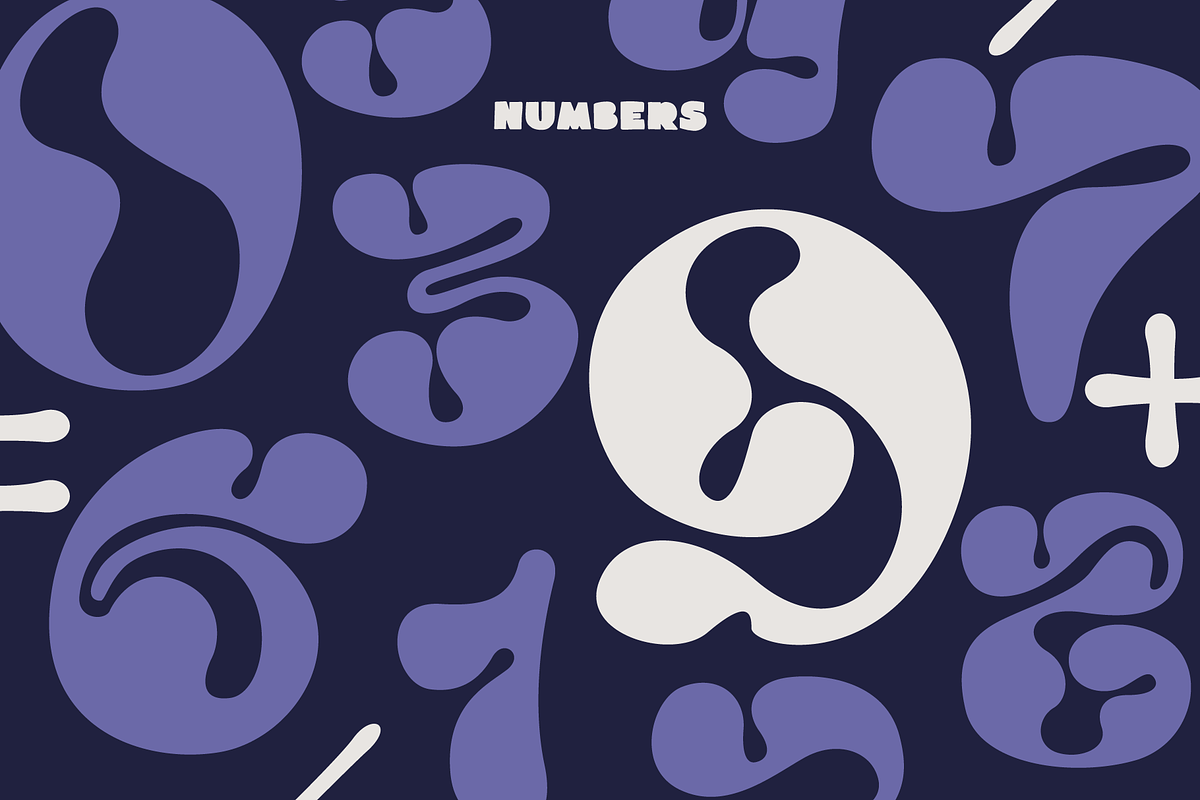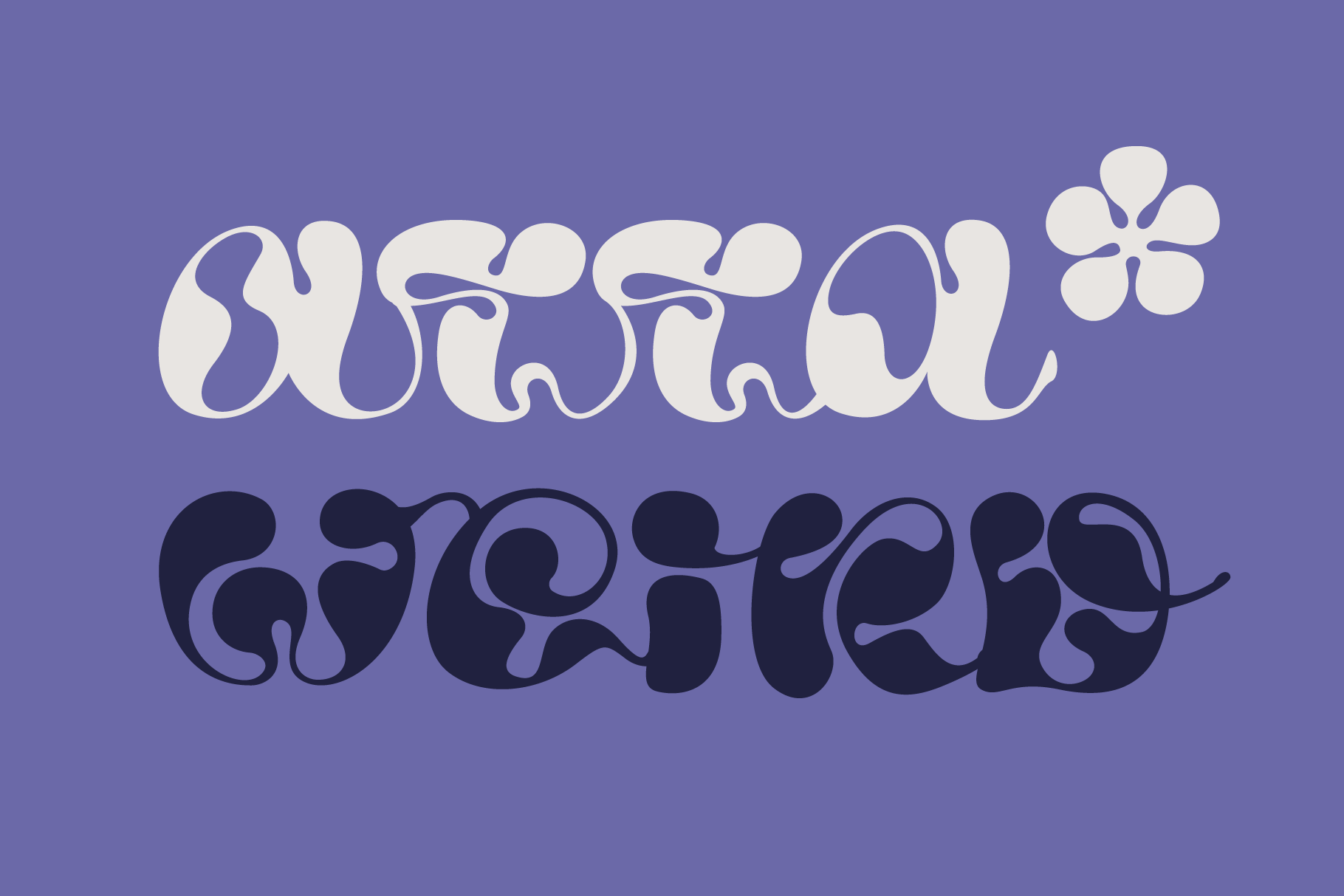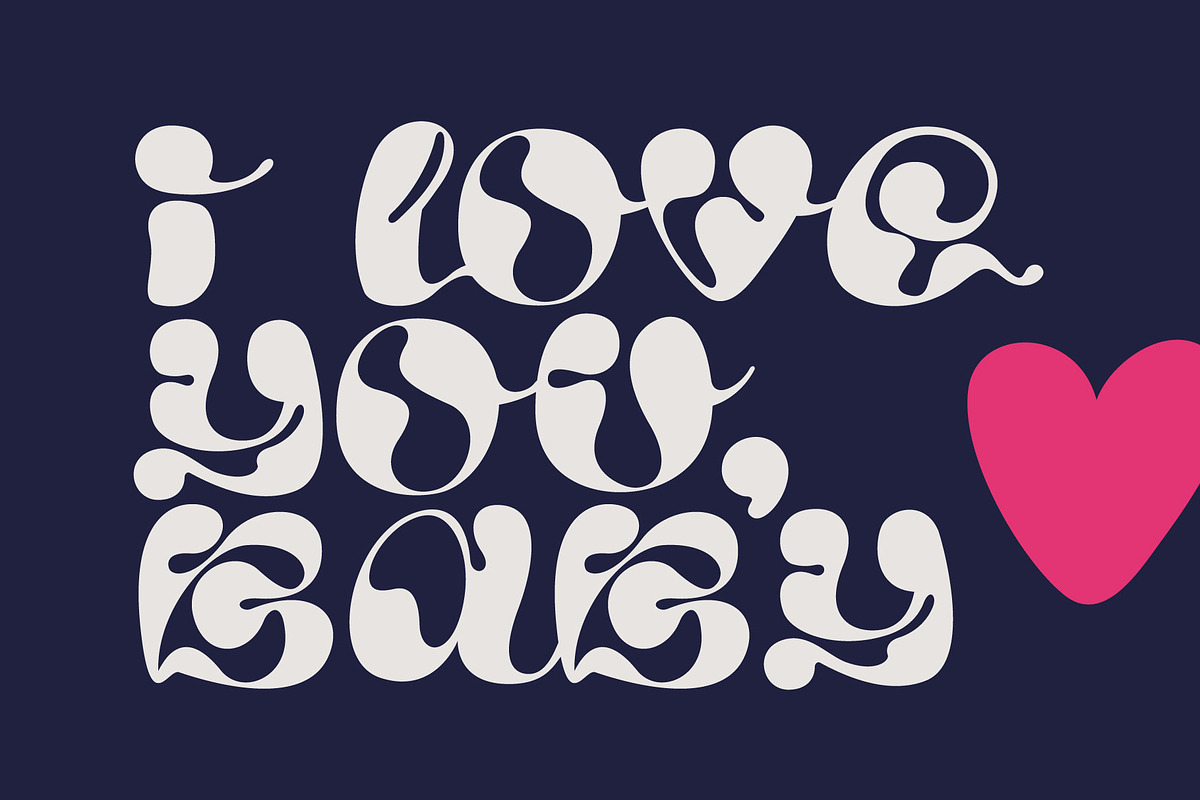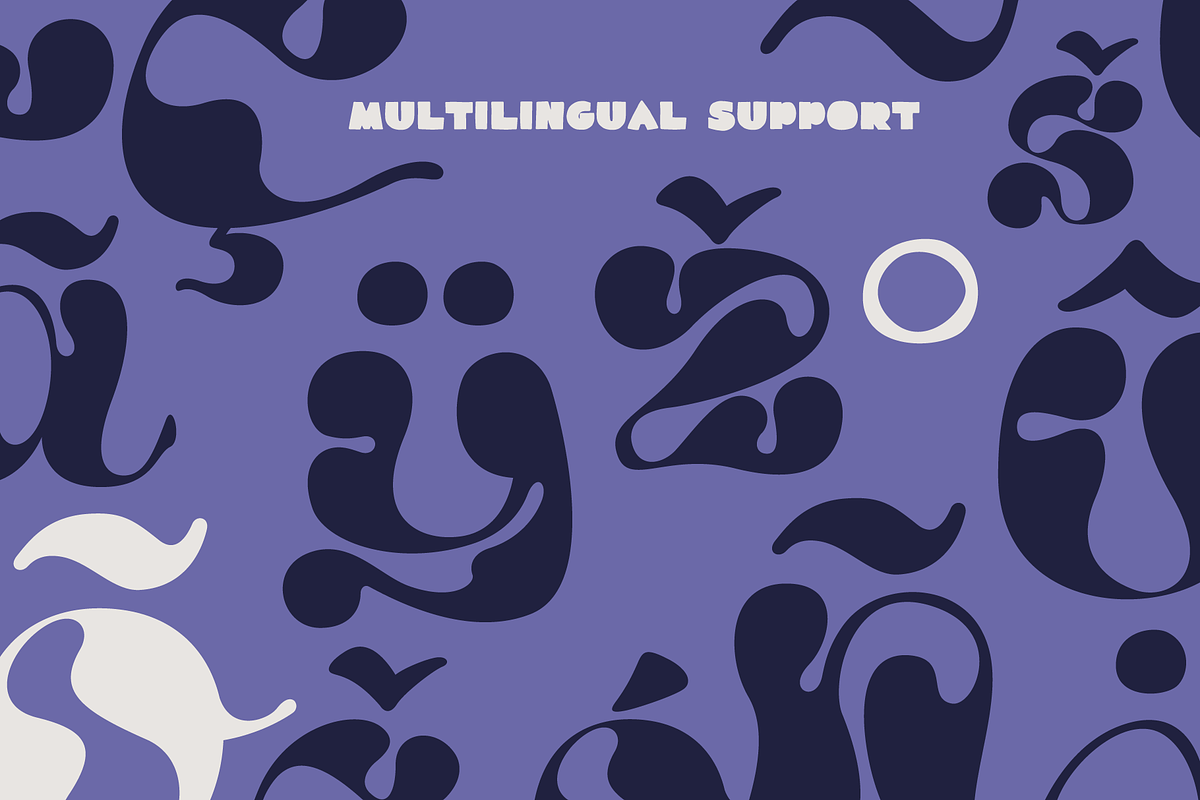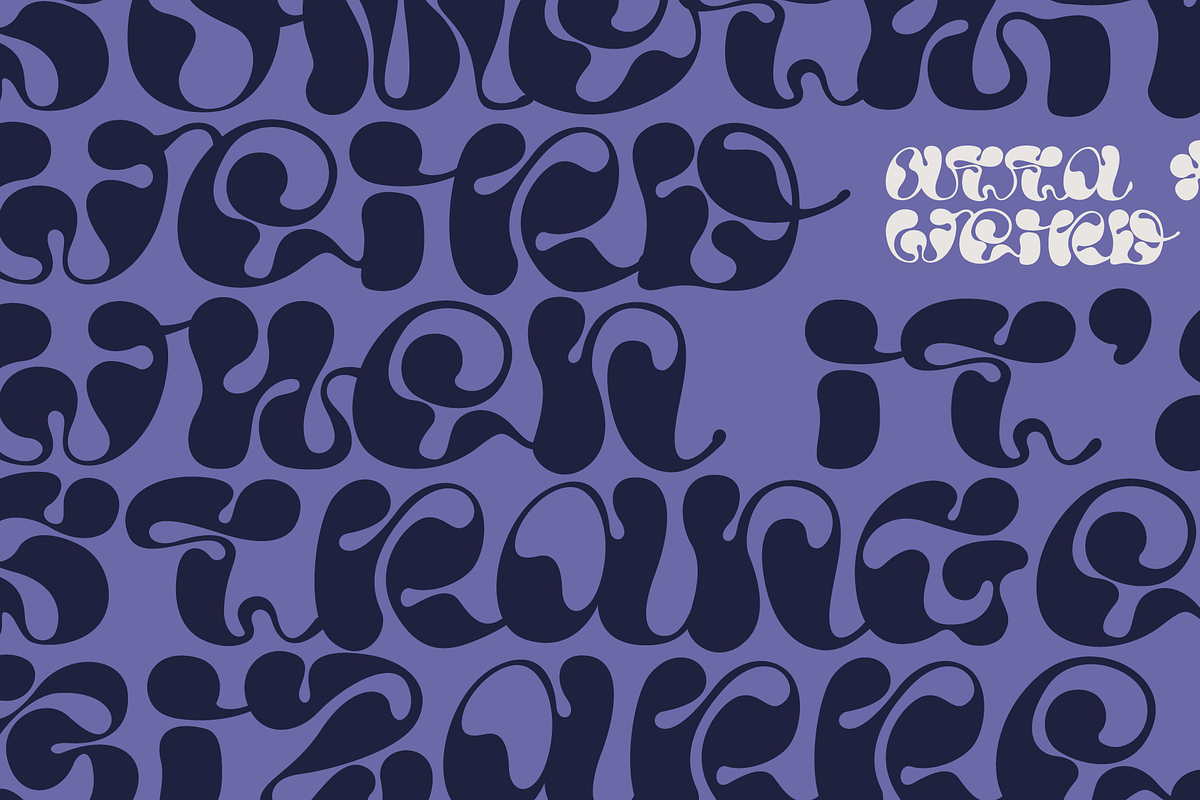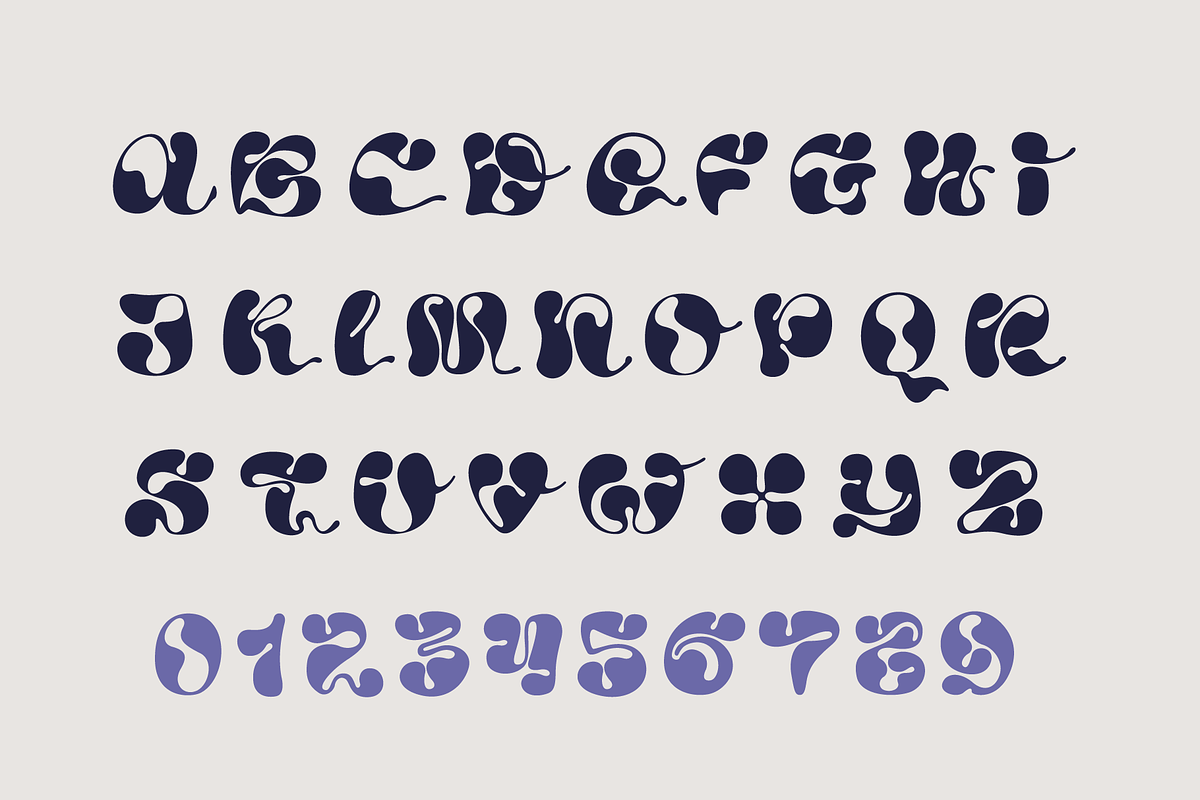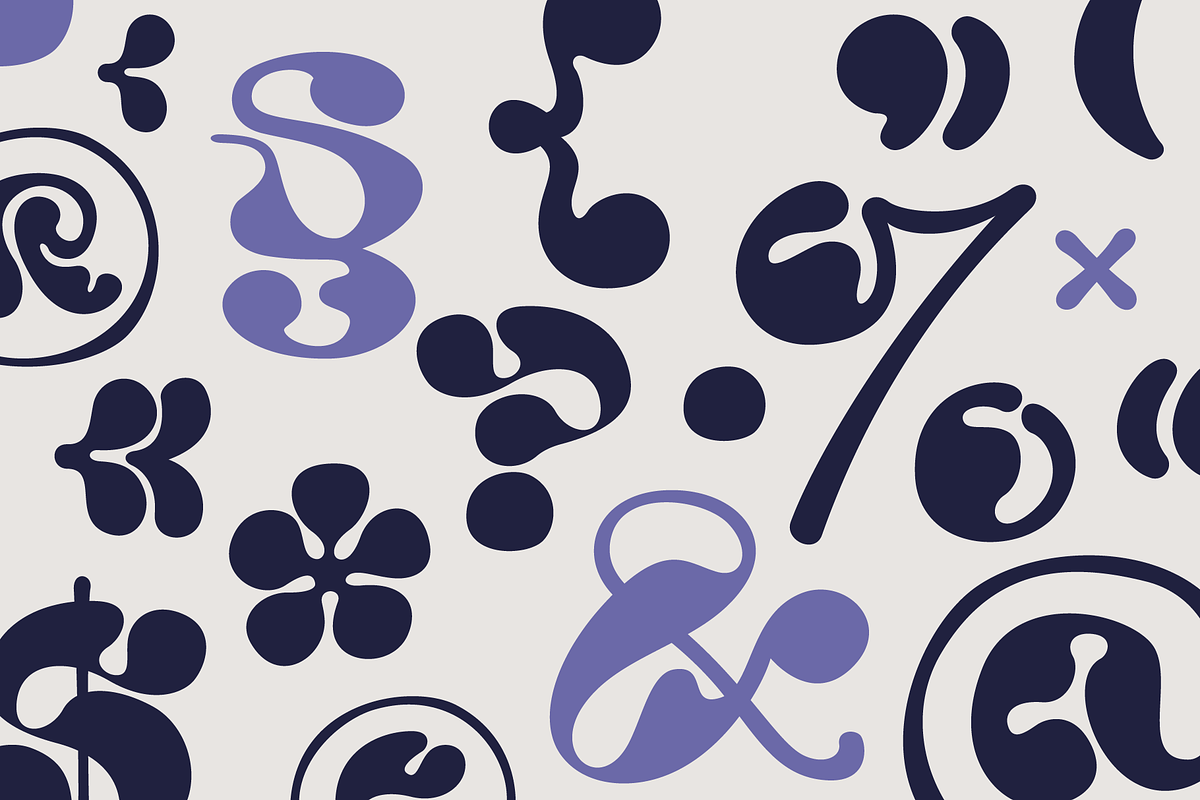
Atta Weird script font
Hello! Do you need a weird font for your lettering, invitations, or banners? Please try it. There are a lot of ligatures and multilingual glyphs.
- Uppercase (lowercase glyphs are same)
- Numbers and symbols